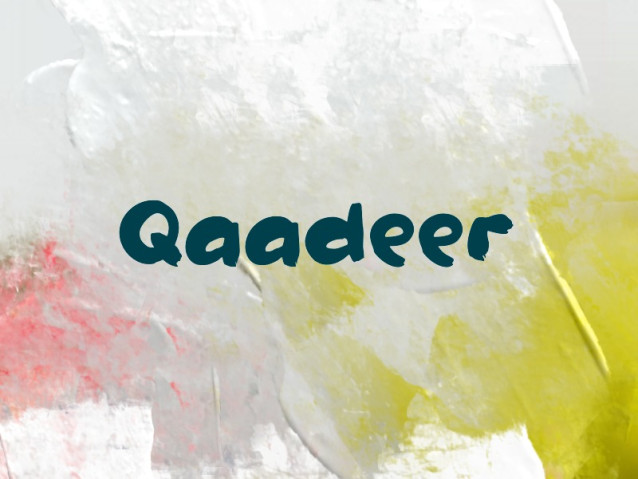
Qaadeer Font
Qaadeer Font is a simple and modern display font suitable for quotes, logos, headings, titles, and many more. Use it on any of your creative projects, and your designs will become outstanding!